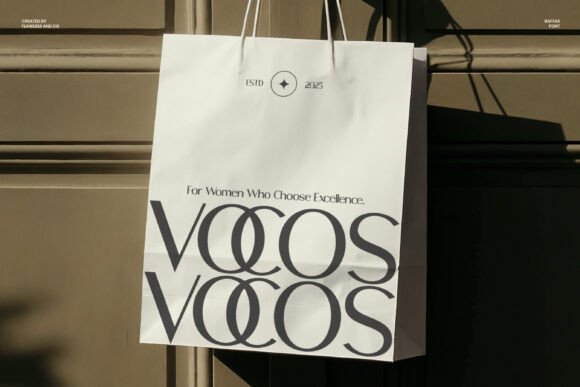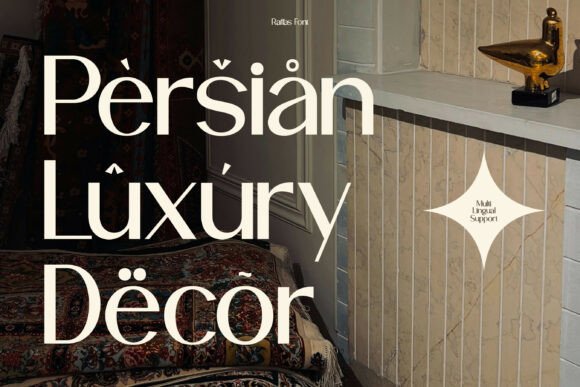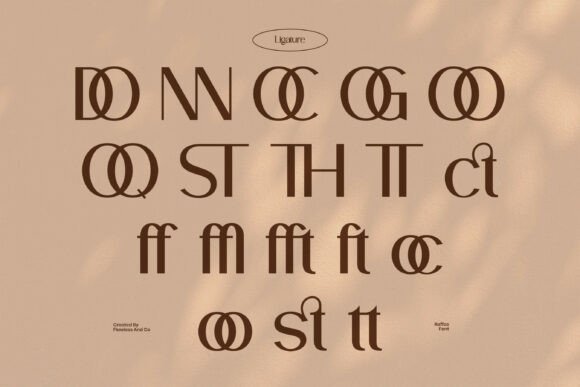
Introduction to Raffas Font Font
Fonts play a crucial role in design, and the Raffas Font font is a typeface that brings both character and versatility to any project. Whether you’re working on a branding project, a website, or a print design, the Raffas Font font offers a unique style that can elevate your work.
Raffas is an elegant modern sans serif font designed to bring a clean, refined, and professional feel to any visual project.
With its smooth curves, balanced proportions, and minimalist character, Raffas delivers a timeless aesthetic that feels both contemporary and luxurious This font is crafted to work beautifully in branding and logo design, offering clarity and sophistication without losing personality.
Key Features of Raffas Font Font
Why Choose Raffas Font Font?
The Raffas Font font is more than just a typeface – it’s a design tool that helps you communicate your message with style and clarity. Its unique character set and versatile design make it suitable for a wide range of applications, from elegant invitations to bold headlines.
With its carefully crafted letterforms and balanced proportions, the Raffas Font font ensures readability and visual appeal across all mediums.
What makes Raffas Font font special?
The Raffas Font font stands out with its unique design, exceptional readability, and versatility across various design applications.